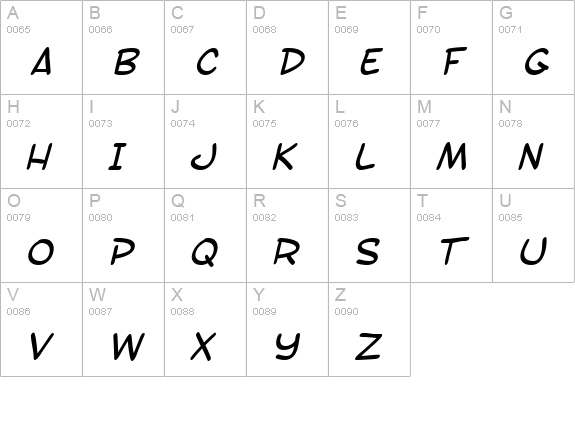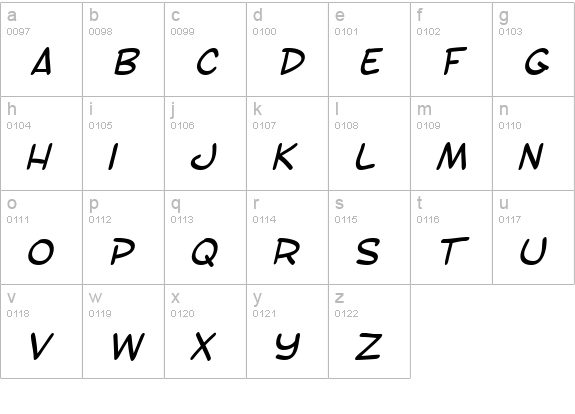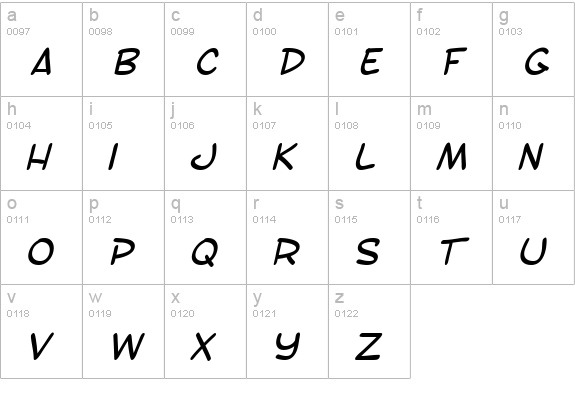
SF Toontime Italic Font Details
SF Toontime Italic is a distinctive, italic variant in the SF typeface family \xE2\x80\x94 well suited to design and typography projects.
SF Toontime Italic font is a playful and whimsical typeface that brings a touch of cartoonish charm to any design project. Its slanted and curved letterforms evoke a sense of movement and energy, making it perfect for creating fun and lighthearted designs. This font is not only visually appealing but also highly versatile, suitable for a wide range of design applications. Whether you're working on a children's book, a comic strip, a poster, or a website, SF Toontime Italic font will add a delightful and animated element to your project. One of the best things about SF Toontime Italic font is that it is freely available to download at FontsMarket.com. This means that you can easily access and use this font without any cost. It's a fantastic opportunity to add a unique and playful touch to your designs without breaking the bank. The characters in SF Toontime Italic font are expertly crafted with attention to detail. Each letter is carefully designed to maintain a consistent style and maintain legibility while still retaining its playful and animated personality. The font's smooth curves and expressive strokes give it a hand-drawn quality, adding a sense of authenticity and charm to your designs. SF Toontime Italic font also includes a wide range of special characters, punctuation marks, and symbols, allowing you to add even more creativity and personality to your designs. Whether you're looking to create eye-catching headlines or bring life to body text, this font has everything you need to make your design stand out. So why wait? Download SF Toontime Italic font for free at FontsMarket.com and unleash your creativity. Its lively and playful nature will add a touch of whimsy and fun to your designs, making them truly memorable. Don't miss out on this fantastic opportunity to enhance your projects with this delightful font.